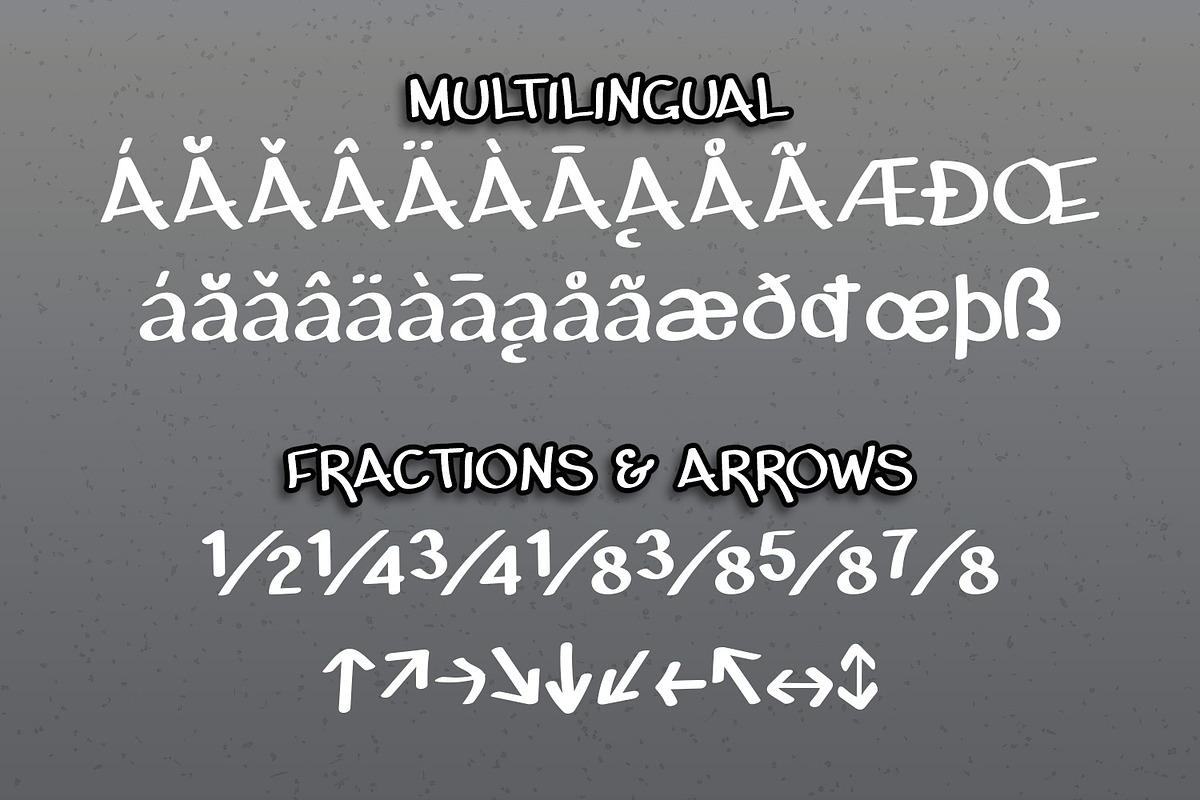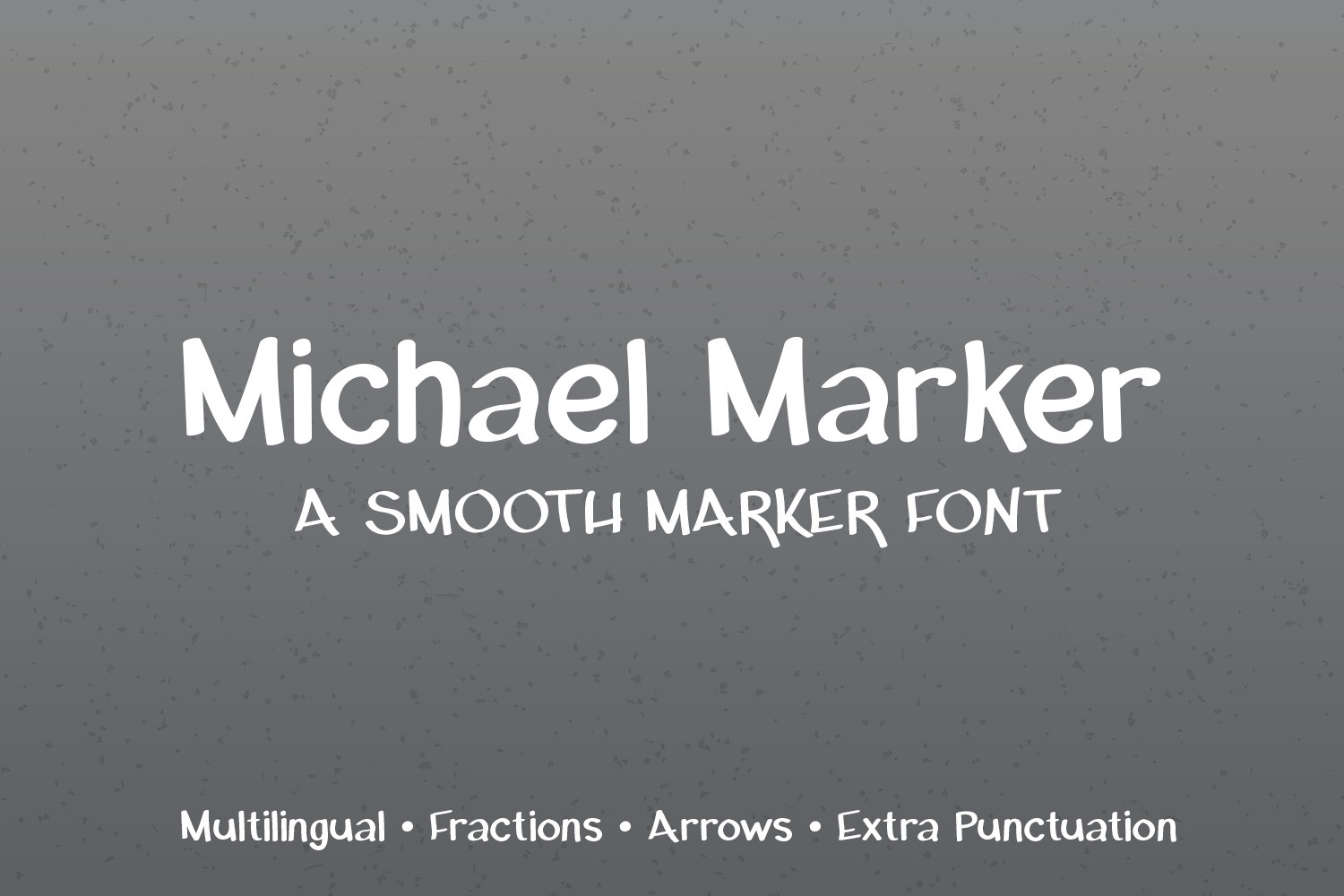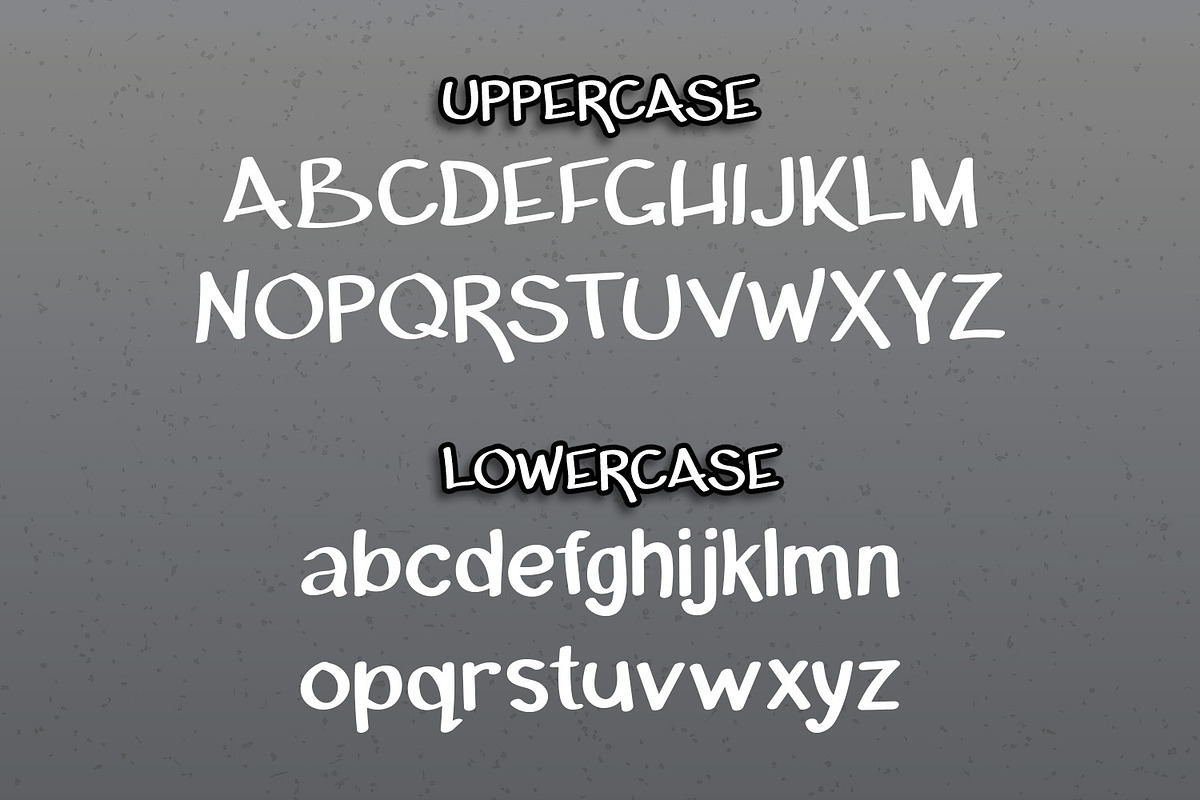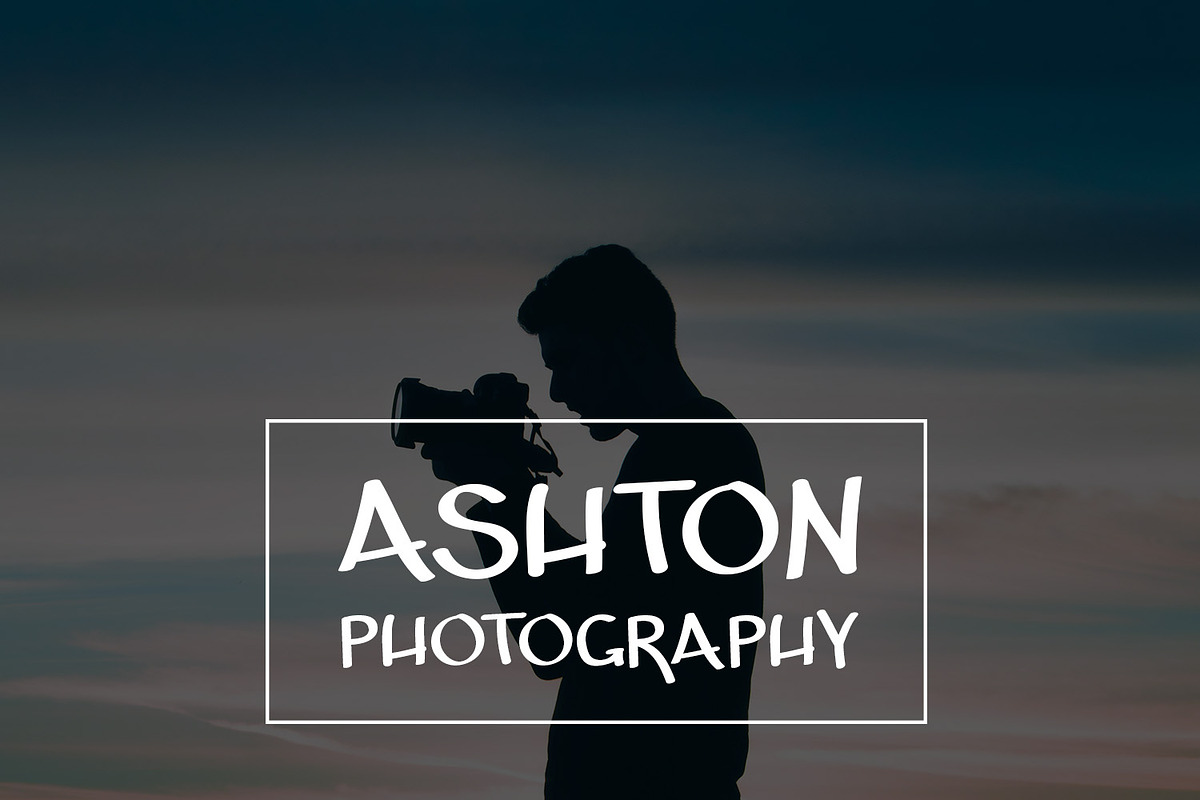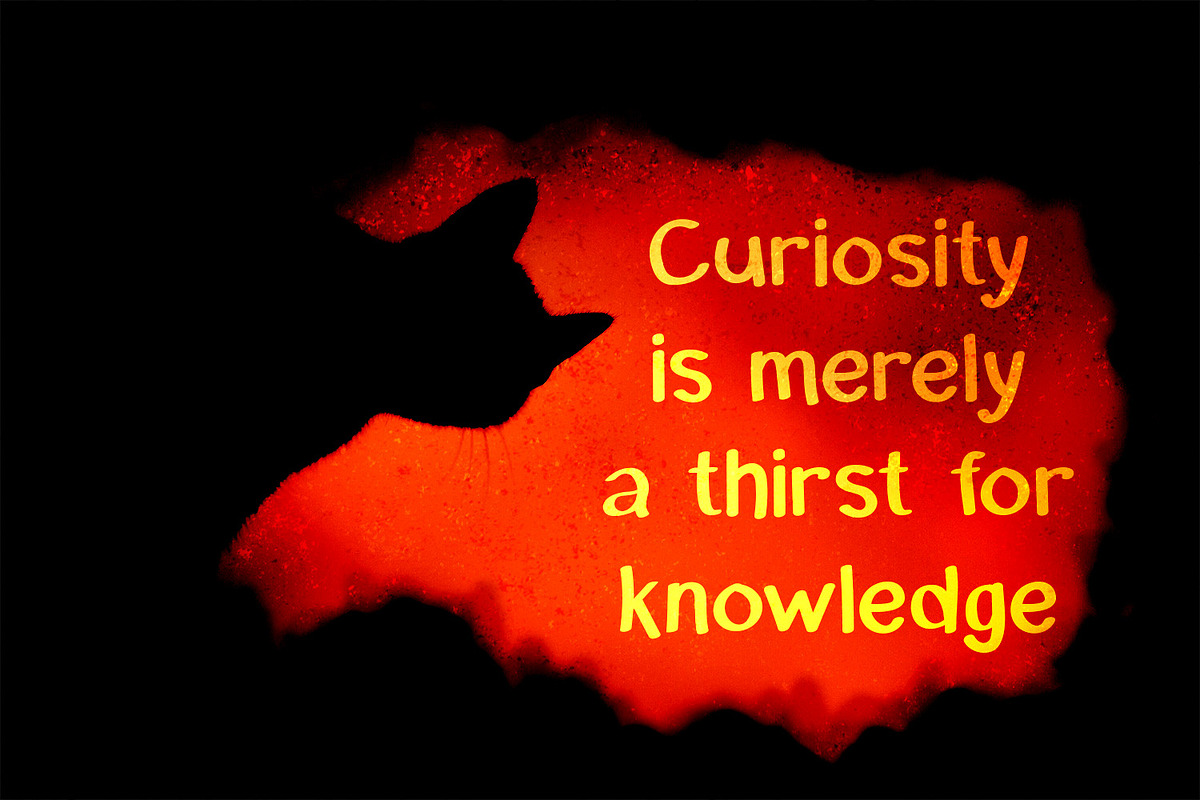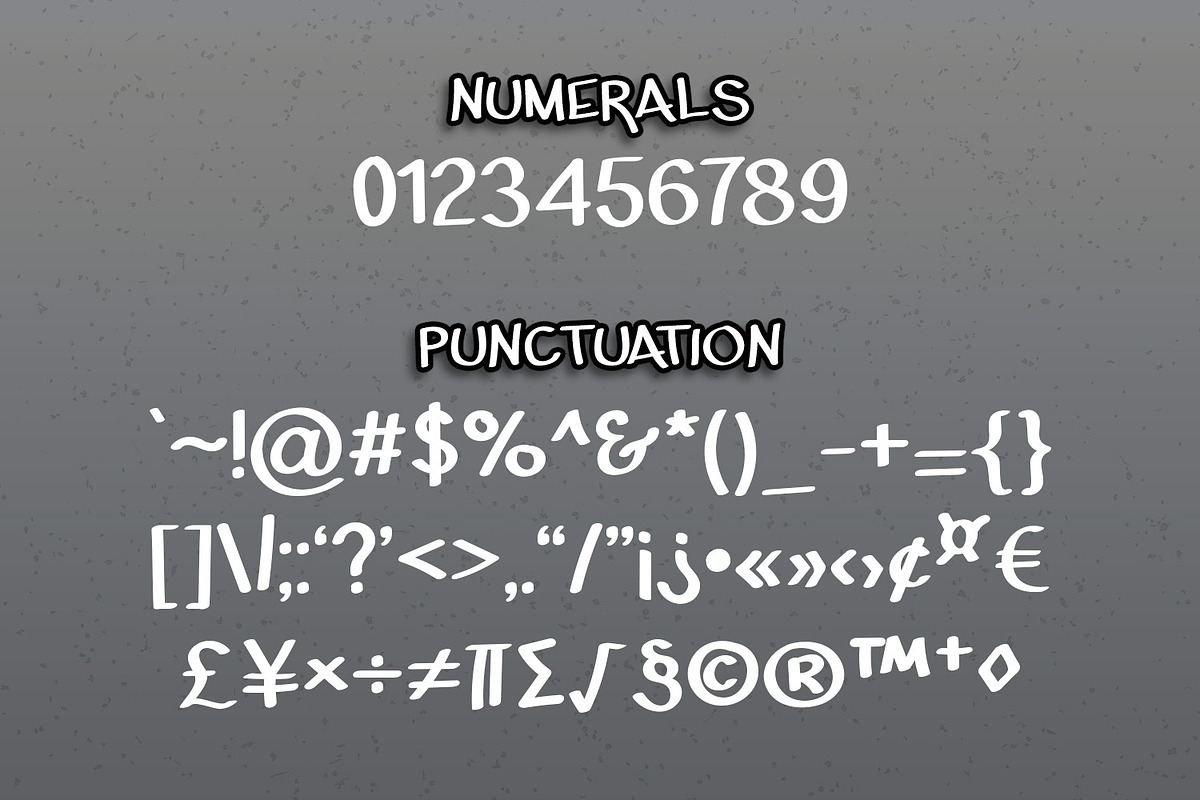
Michael Marker Font
Michael Marker font is a smooth, bold, handwritten font.
Including a full set of uppercase, lowercase, numerals, and punctuation.
Michael marker is multilingual and includes extra punctuation, fractions, and arrows.
Looks great as a bold, relaxed, masculine font in logos and other designs.